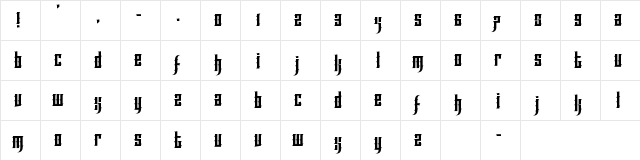
Effortless Tattoo Regular
| Designer | Andrew McCluskey |
Design Context for Effortless Tattoo Typeface
Effortless Tattoo is a composed and adaptable typeface that performs quietly and consistently across a wide range of design contexts.